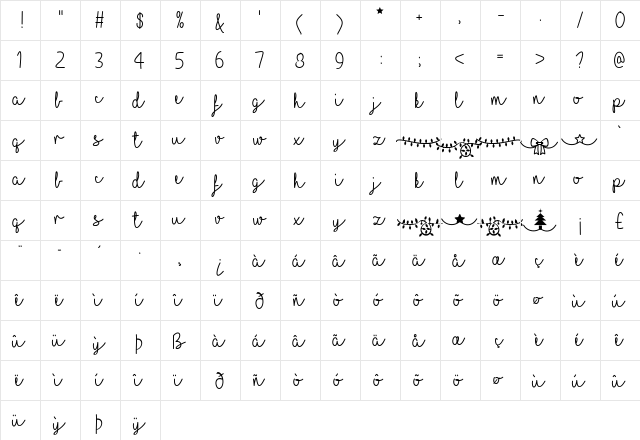
I Love Christmas Regular
Design Context for I Love Christmas Typeface
I Love Christmas is a composed and adaptable typeface that performs quietly and consistently across a wide range of design contexts.